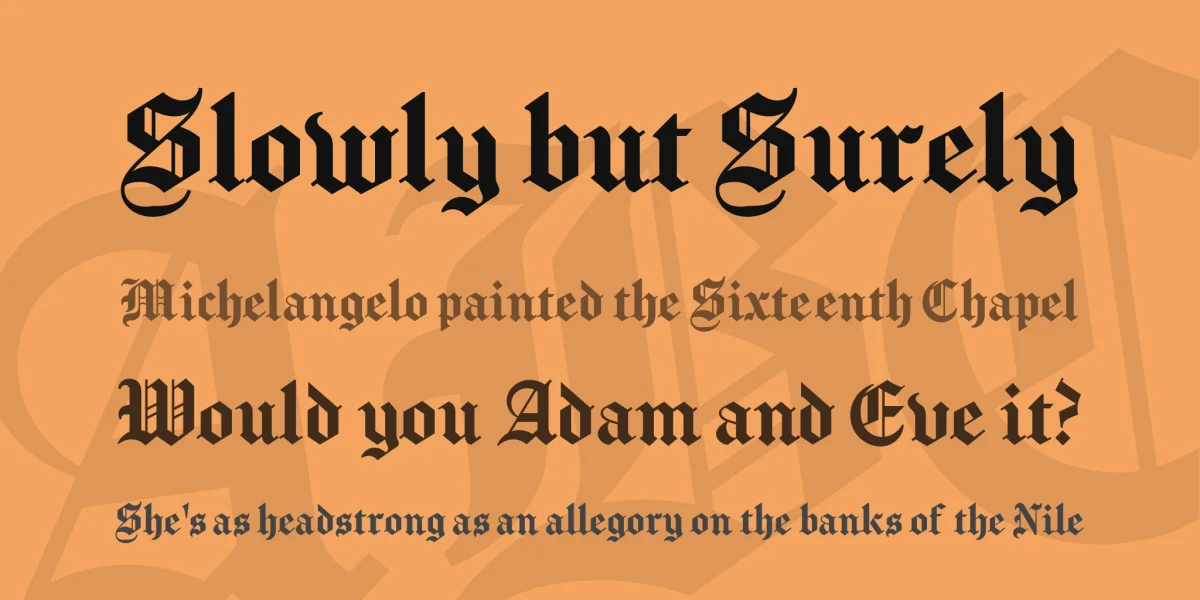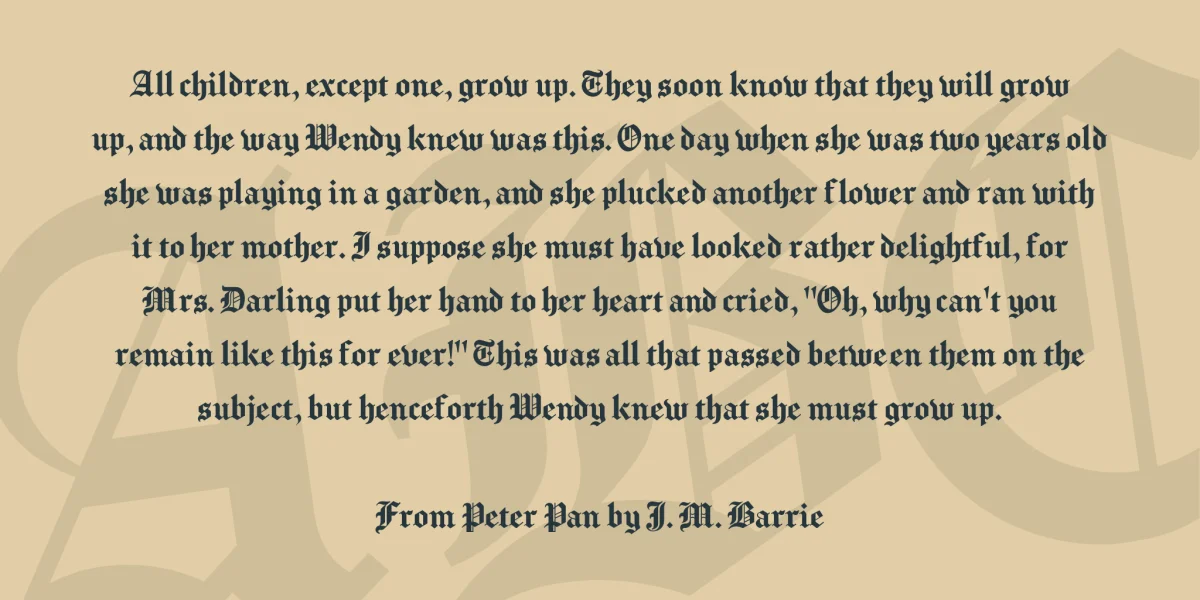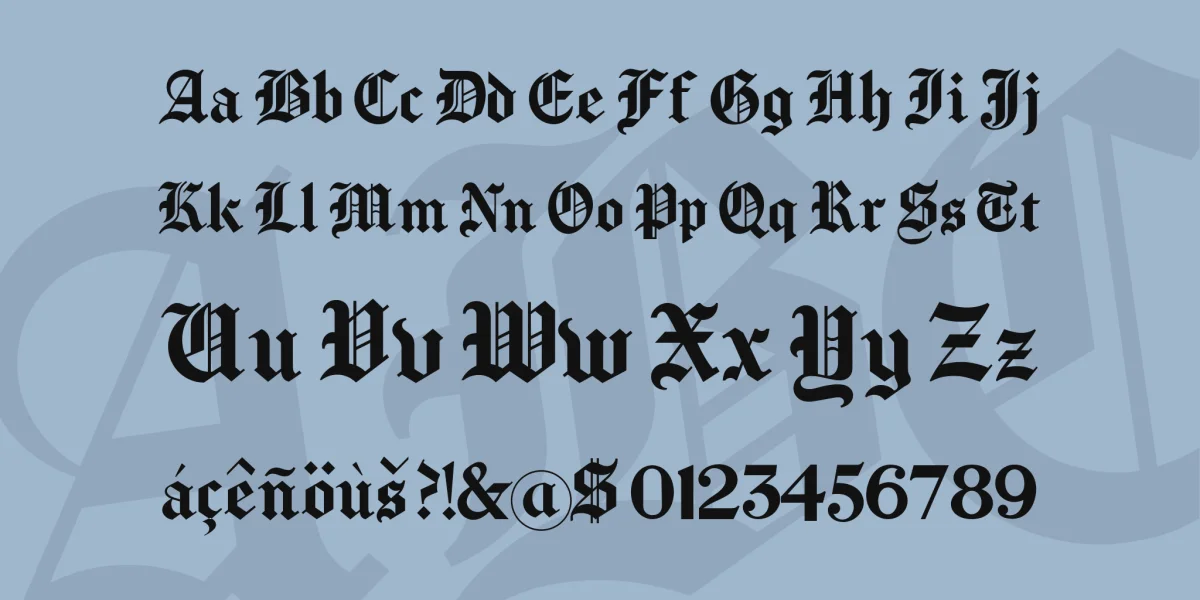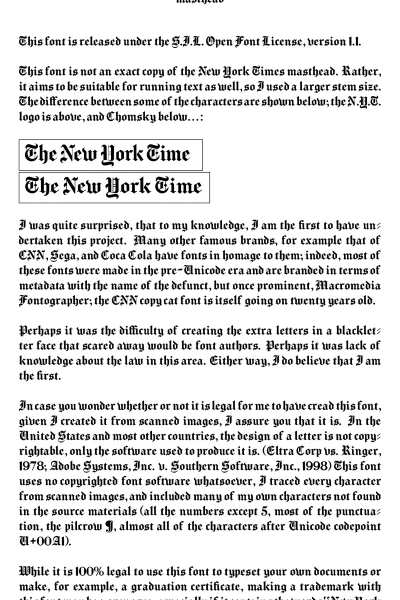
This is Chomsky, a newspaper masthead font in the style of the New York Times masthead. It's licensed under the SIL OFL. Bugs can be reported to the author at github.com/ctrlcctrlv/chomsky